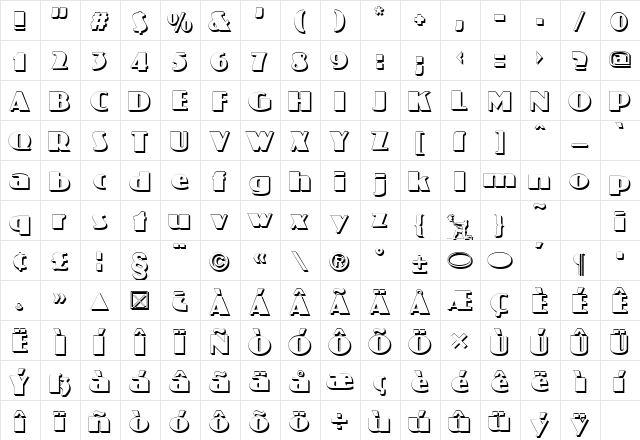
Koloss Shadow Regular
Design Context for Koloss Shadow Typeface
Koloss Shadow brings ornamental detail and strong personality to headlines and identities, where visual impact matters more than quiet functionality.
Font Pairing: Pair with a clean neutral sans-serif for body copy to let Koloss Shadow's character lead without overwhelming the composition.
Pro Tip: Use Koloss Shadow exclusively at display sizes — it was designed to be seen, not read at length. Let a neutral companion handle body copy.